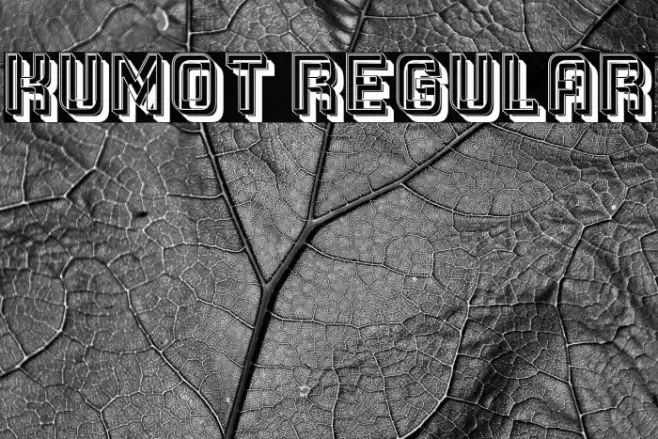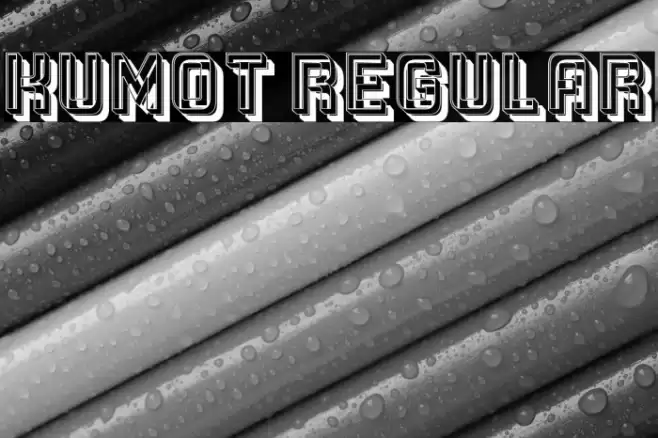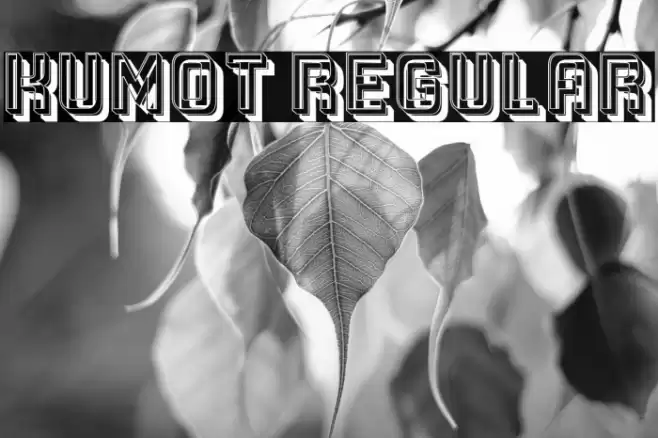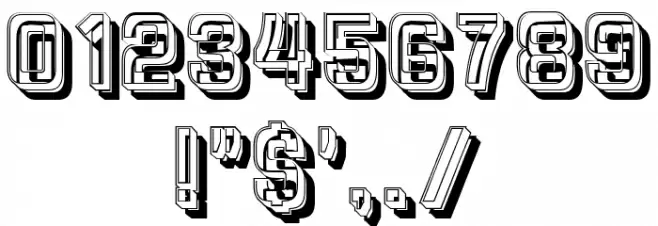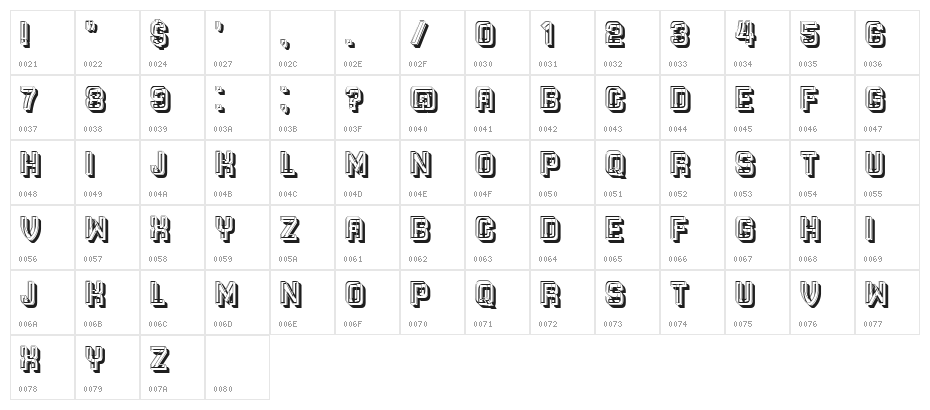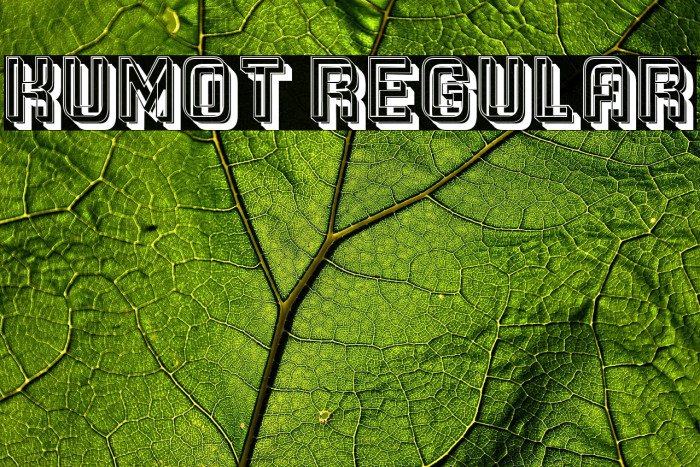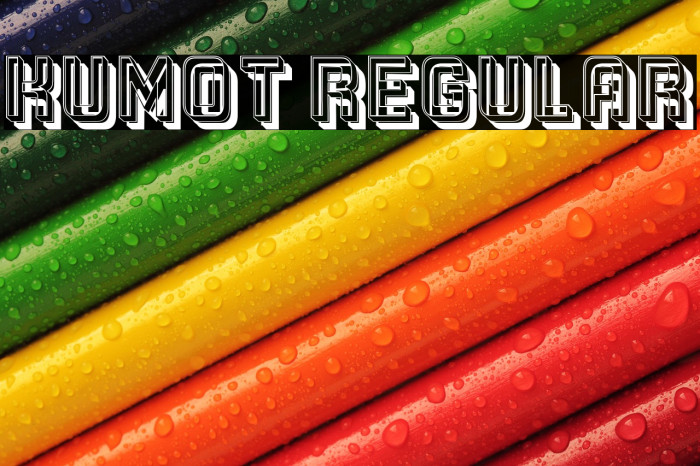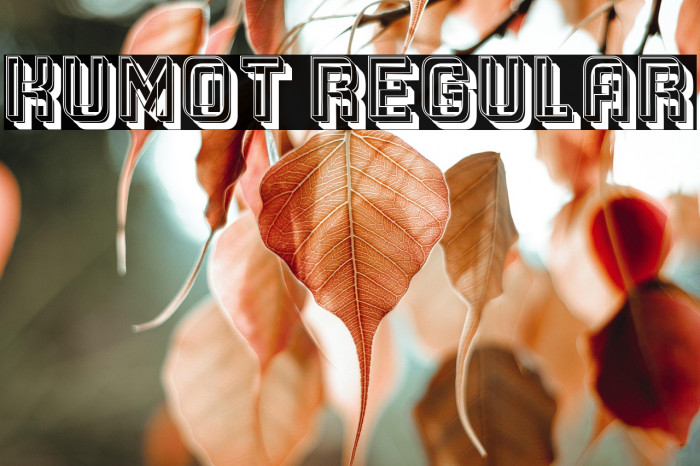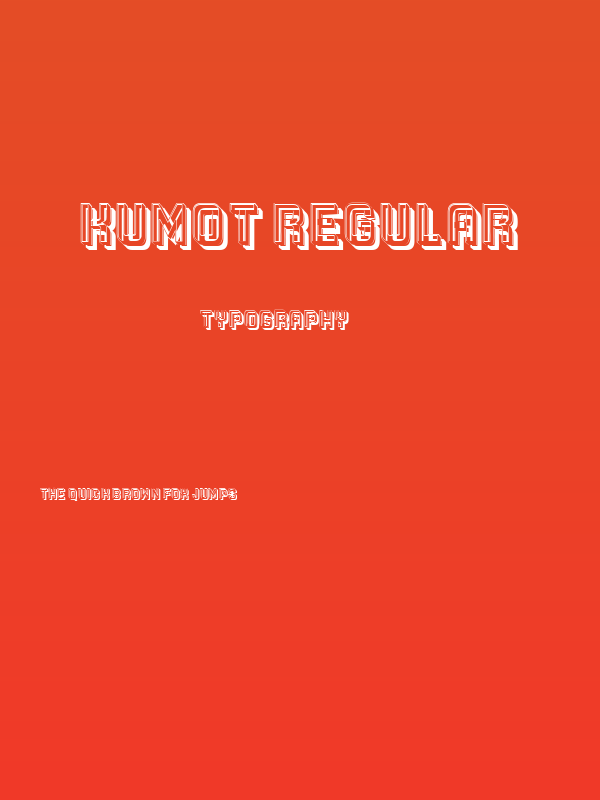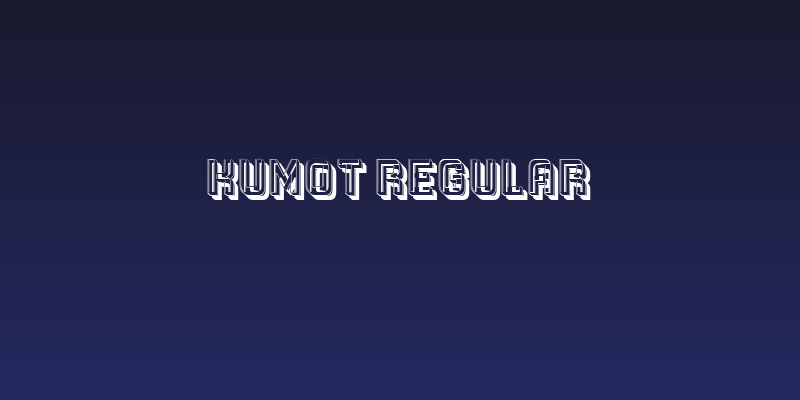
Kumot Regular Font
Kumot Regular Description
This font features a bold, three-dimensional design with a strong, shadowed effect that gives it a striking, impactful appearance. The characters are outlined with a thick black border, creating a sense of depth and dimension. The inner sections of the letters are filled with a lighter shade, enhancing the 3D illusion. This font is highly decorative and eye-catching, making it suitable for projects that require a bold statement. Its geometric structure and sharp angles contribute to a modern and dynamic aesthetic.
A bold, 3D decorative font with strong shadow effects and geometric design from Regular fonts.
- Proposed Projects: Ideal for posters, headlines, logos, and any design that needs a bold, eye-catching typeface.
- Overall Style: Modern, Decorative